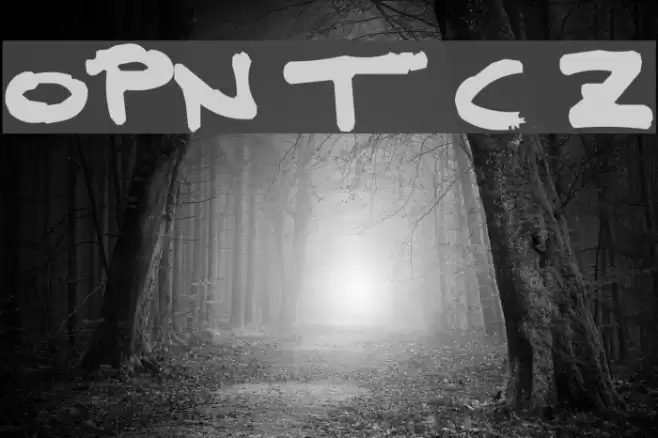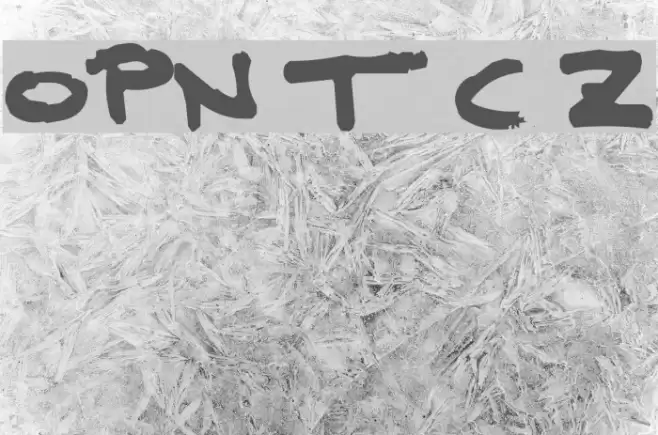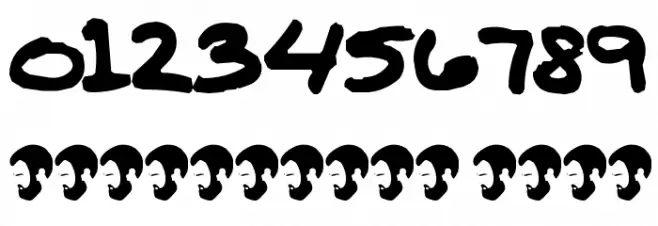
OPN T Complana Z Font
OPN T Complana Z Description
This font features a bold, expressive style with a hand-drawn appearance. The characters are thick and have a brush-like texture, giving them a dynamic and energetic feel. The uppercase and lowercase letters maintain a consistent style, with rounded edges and a slightly irregular baseline, enhancing the casual and artistic look. The numbers and special characters follow the same design principles, ensuring uniformity across all glyphs. This font's unique style makes it suitable for creative projects that require a personal touch.
A bold, hand-drawn font with a brush-like texture and expressive style from Handwritten fonts.